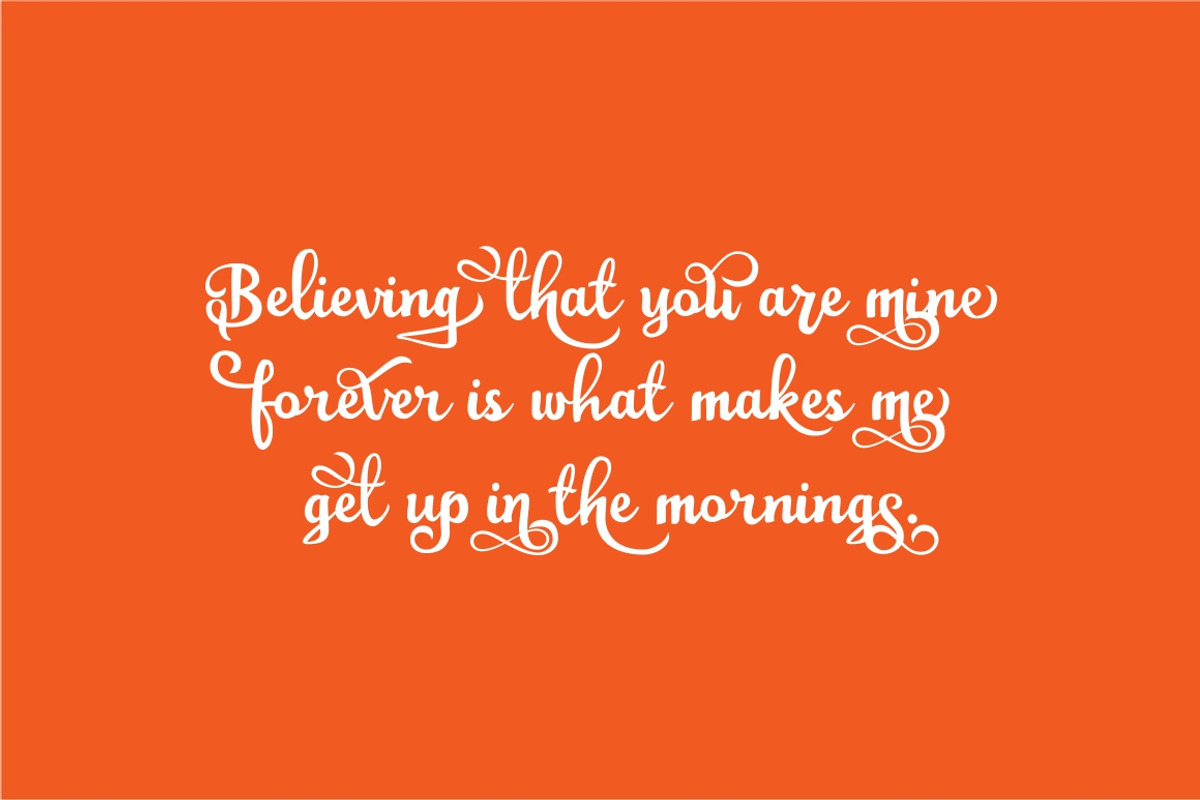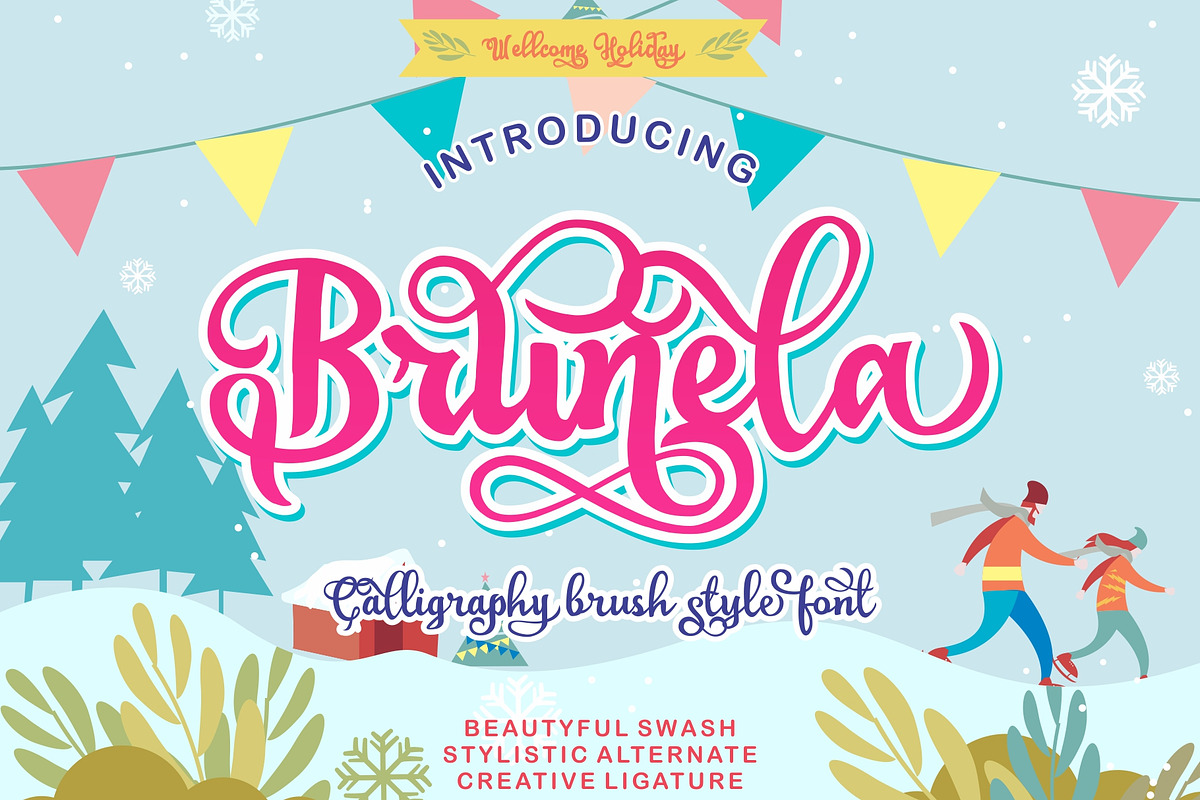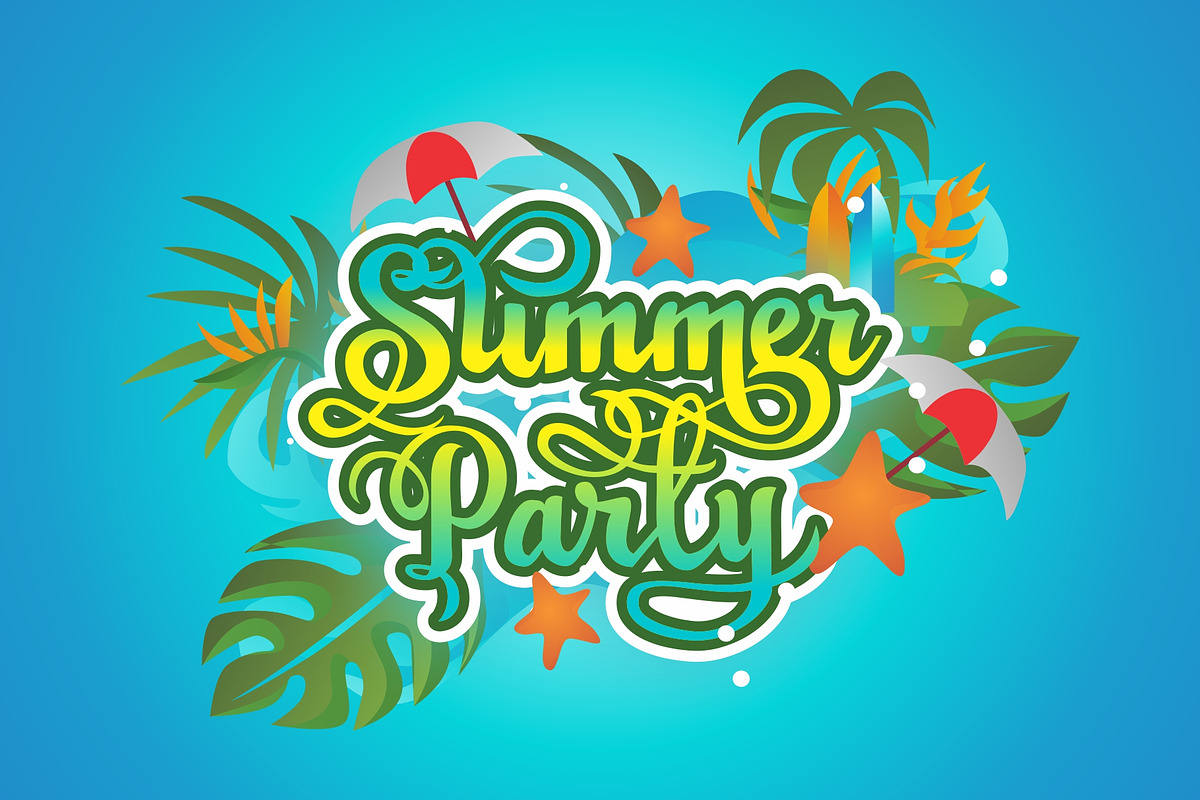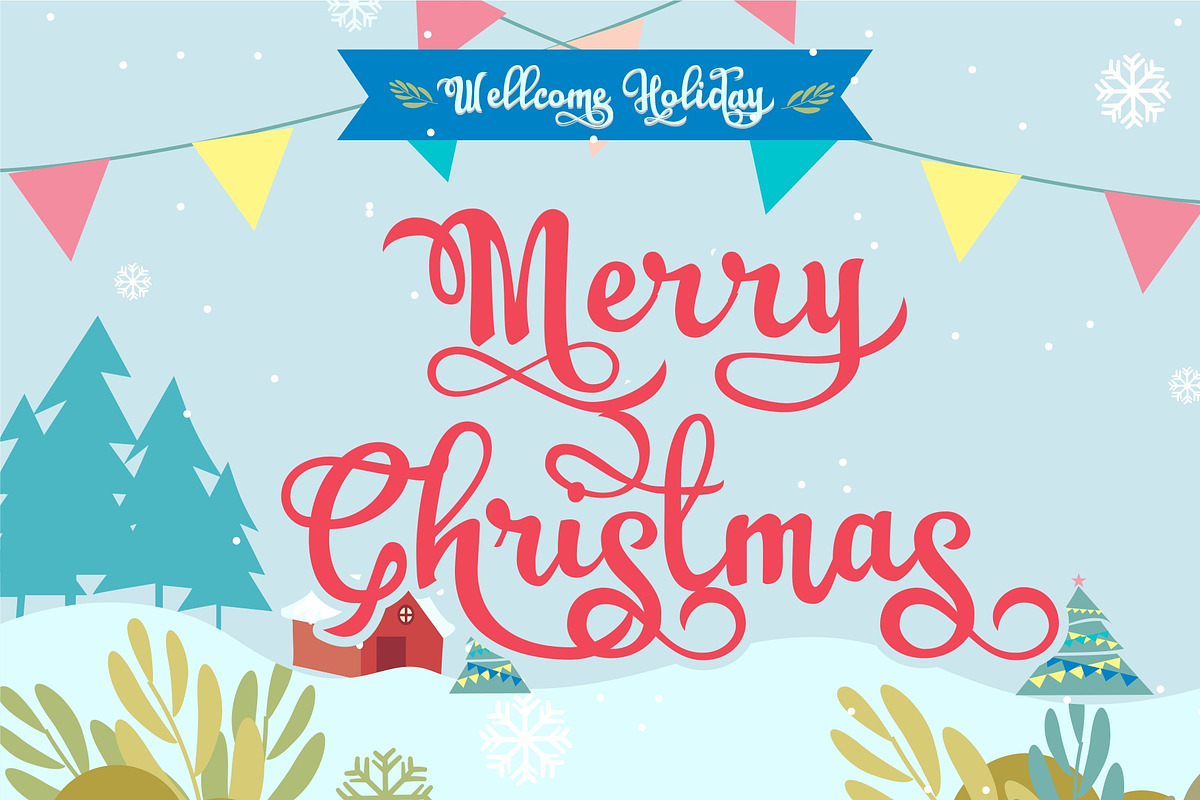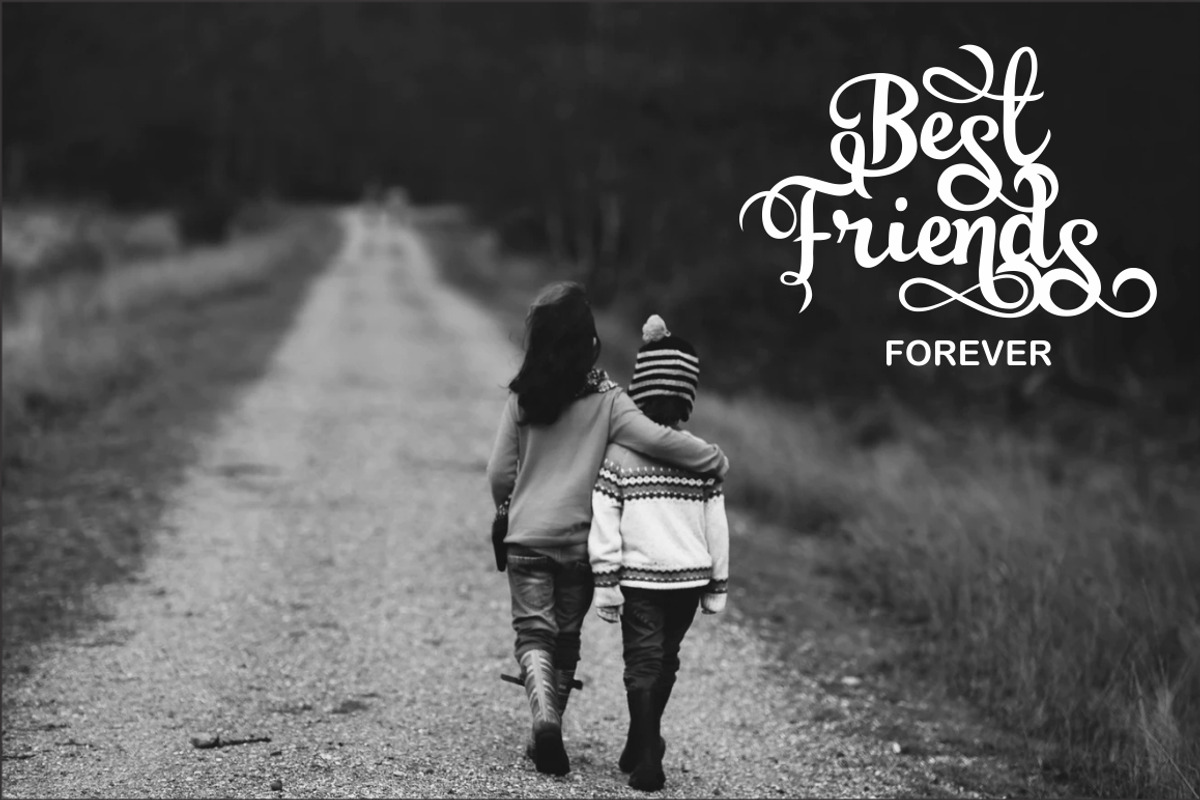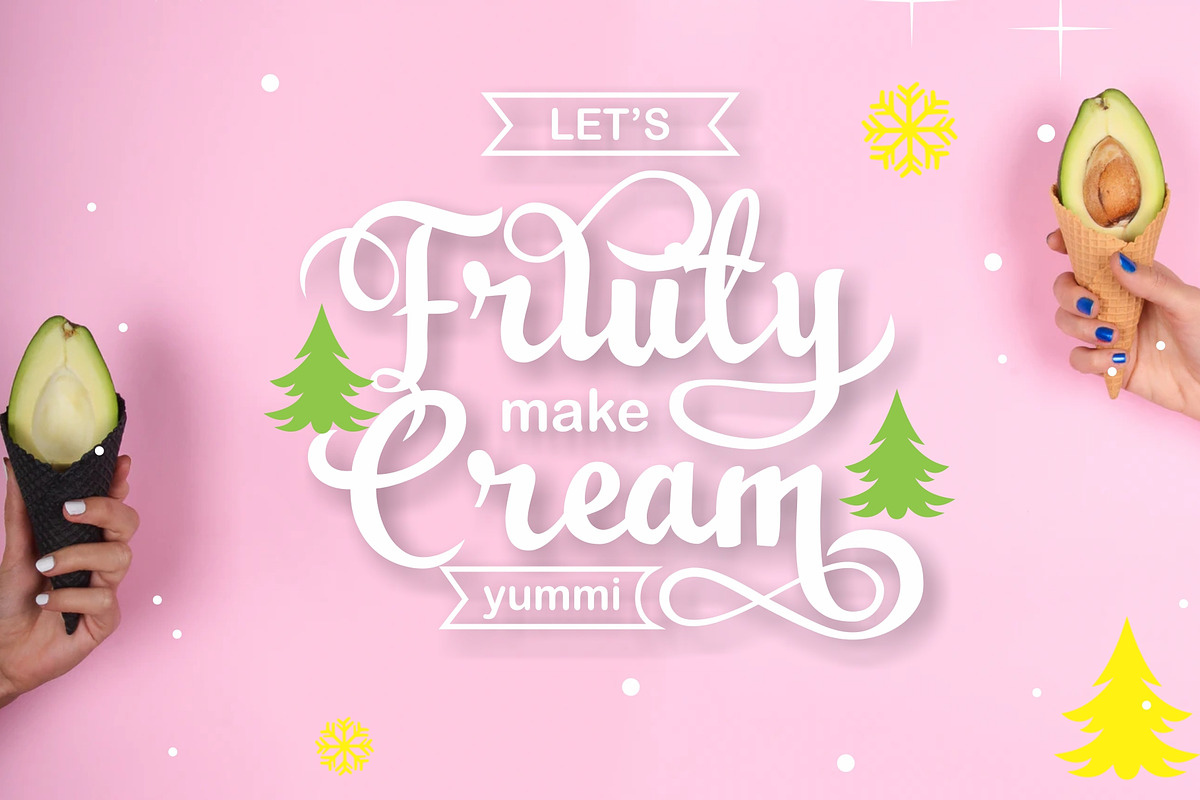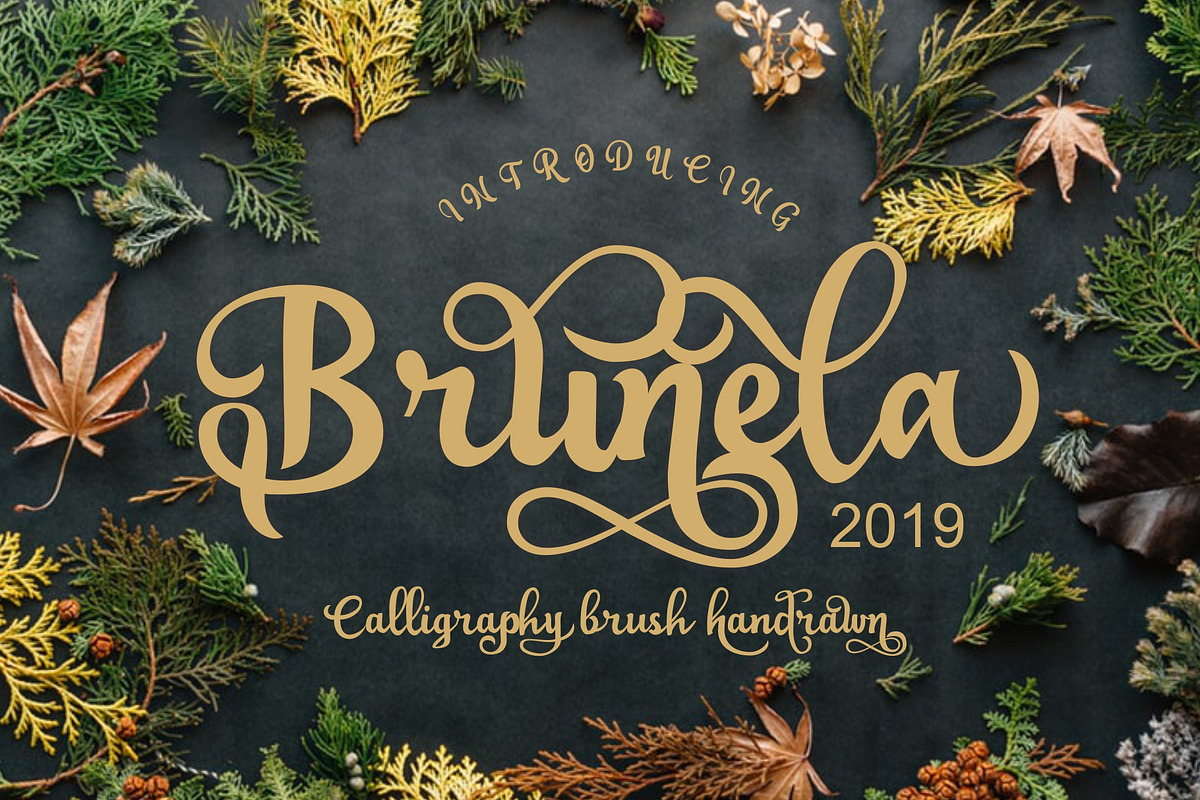
Brunela - Handrawn Calligraphy font
BRUNELA is a brush font with calligraphy style, so that we can write beautifully to beautify your typography design, with the concept of handwriting, have a soft, happy, cheerful and playful feel, so that it fits perfectly applied in happy, beautiful and cute themed designs. design:Z Greeting card
Brunela - Handrawn Calligraphy font by SHEILLA fits naturally into Branding, posters, packaging, typography.